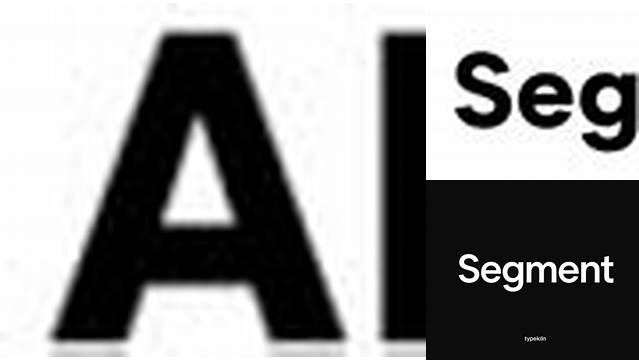
Hey guys! Are you looking for a font that's both modern and impactful? Look no further! The Segment Extra Bold font is exactly what you need. This font is perfect for headlines, logos, and any design that needs to grab attention. And the best part? You can download the TTF version for free! In this article, we'll dive deep into everything you need to know about this awesome font, from its features and uses to how to download and install it. So, let's get started!
What is Segment Extra Bold Font?
Let's kick things off by understanding what makes the Segment Extra Bold font so special. This font belongs to the sans-serif family, known for its clean and modern appearance. The 'extra bold' weight adds a punch of boldness, making it incredibly eye-catching. It’s not just another font; it’s a statement! Think about those times when you need a design element to really pop – that’s where this font shines. Its strong, assertive character lends itself beautifully to various applications, and its readability is maintained even at larger sizes, making it a go-to choice for designers who want to create a lasting impression. The Segment Extra Bold font is designed to be versatile, and its distinctive style sets it apart from more conventional fonts, making it an excellent option for projects that require a touch of contemporary flair. Imagine a sleek, modern logo or a website header that demands attention; this font is the perfect tool to achieve that.
Key Features of Segment Extra Bold
The Segment Extra Bold font isn’t just about being bold; it’s packed with features that make it a designer’s dream. First off, its clean lines and geometric shapes give it a contemporary edge. The letterforms are meticulously crafted to ensure clarity and readability, whether you're using it for print or digital media. Secondly, the extra bold weight means your text will stand out, no matter the background. This is super important for things like posters or website banners where you want to make a big impact. Also, the font often includes a full character set, with uppercase and lowercase letters, numerals, and a range of punctuation marks, providing you with the flexibility to tackle any project. The font’s versatility also means it can be used in a variety of contexts, from corporate branding to creative marketing campaigns. Plus, its modern aesthetic makes it a fantastic choice for web design, ensuring your online presence is both stylish and professional. The Segment Extra Bold font truly offers a blend of style and functionality, making it a must-have in any designer's toolkit.
Why Use a Bold Font Like Segment Extra Bold?
So, why even bother with a bold font like Segment Extra Bold? Well, bold fonts are visual powerhouses. They instantly command attention, making them ideal for headlines, titles, and call-to-action buttons. Think about it – when you see a bold heading, it's the first thing that catches your eye, right? Bold fonts also convey a sense of confidence and importance. Using them in your designs can help you communicate key messages effectively and make a strong statement. Moreover, they’re fantastic for creating contrast and hierarchy in your layouts. By pairing a bold font with a lighter weight font, you can guide the reader's eye and emphasize important information. In the digital world, where attention spans are short, a bold font can be the difference between a reader scrolling past your content or stopping to engage. The Segment Extra Bold font, in particular, is designed to be impactful without sacrificing readability, which is a crucial balance to strike. So, if you’re aiming for clarity, impact, and a touch of modern sophistication, this font is definitely worth considering. The strategic use of bold fonts can elevate your design from good to great, ensuring your message is not just seen, but remembered.